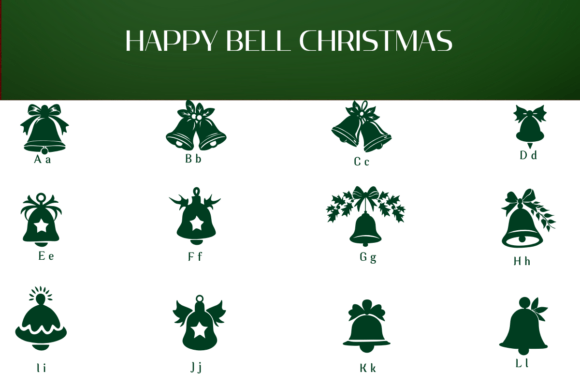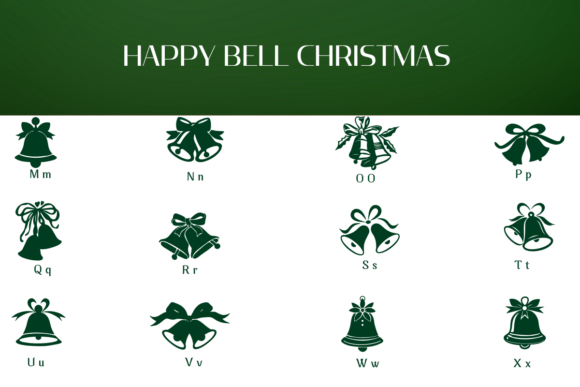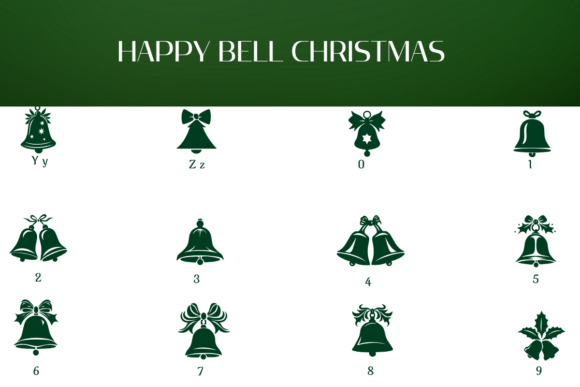
Introduction to Happy Bell Christmas Font
Happy Bell Christmas is a festive dingbat font filled with charming Christmas bell icons.
With a mix of bows, holly, and seasonal decorations, this font is great for holiday cards, gift tags, seasonal scrapbooking, and Christmas-themed designs .